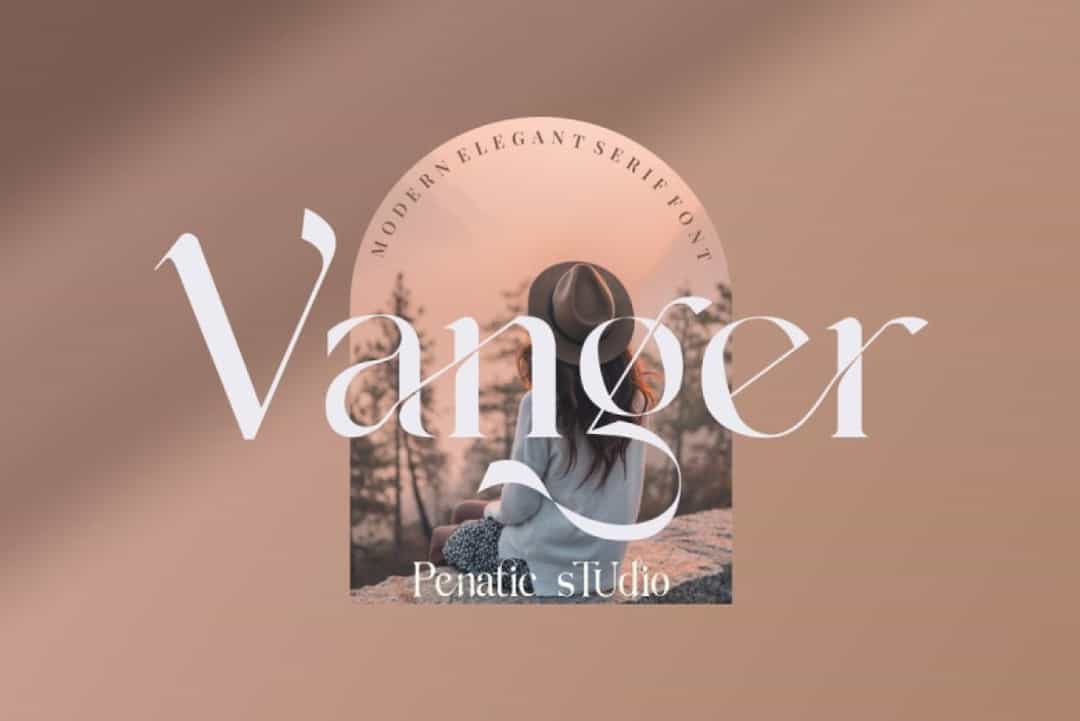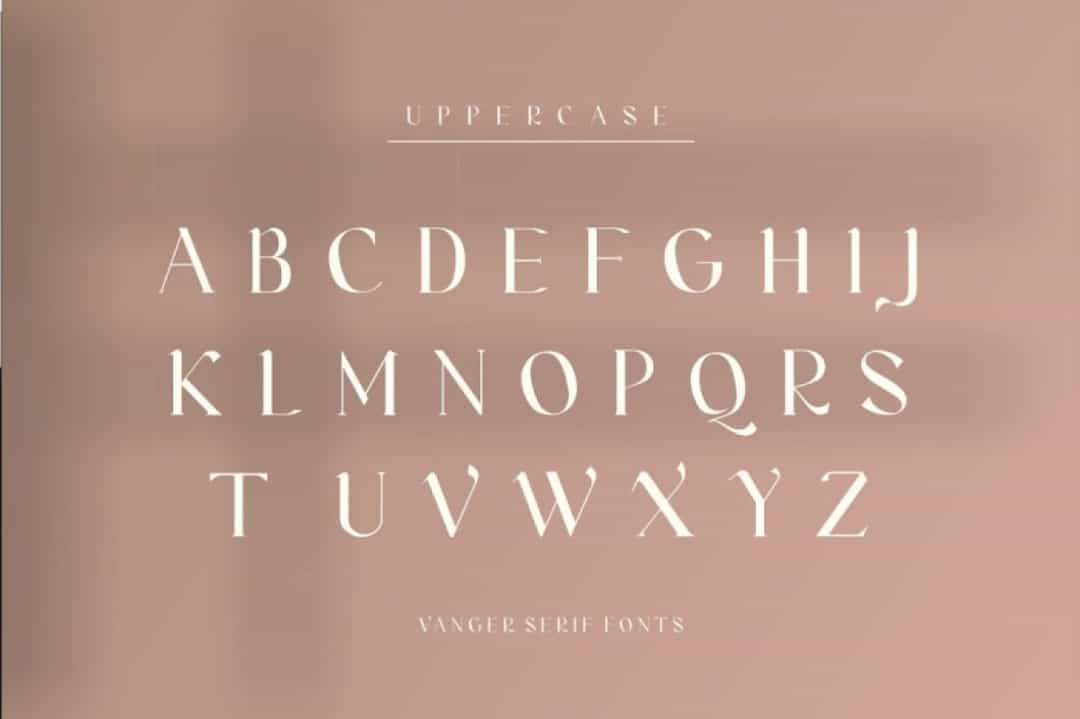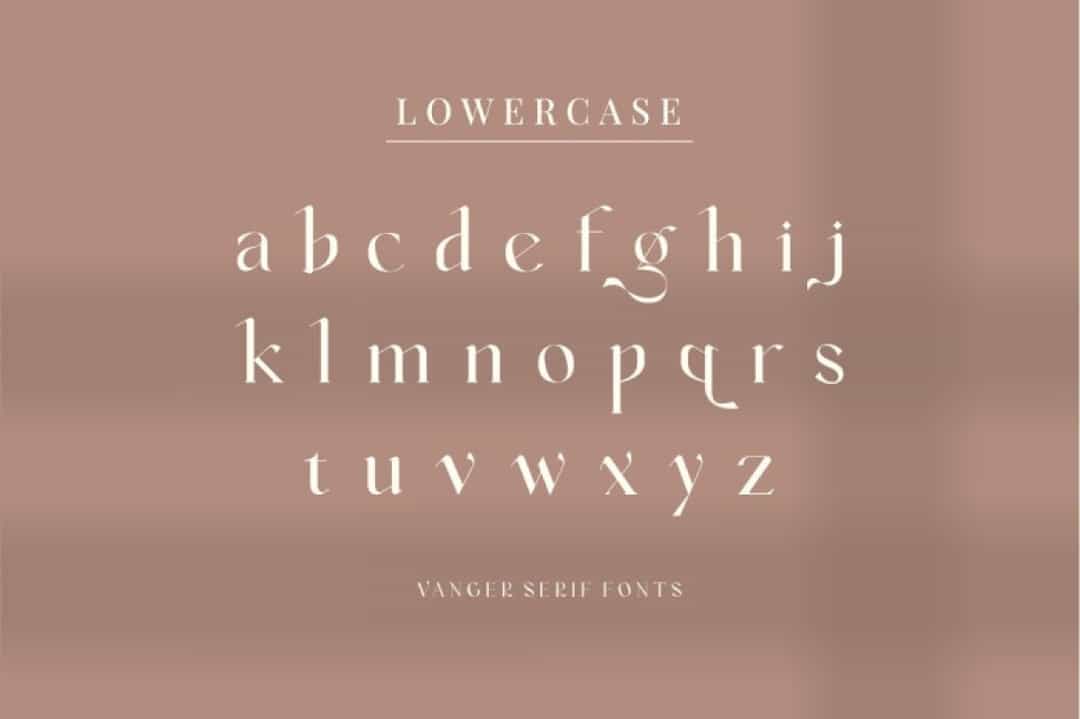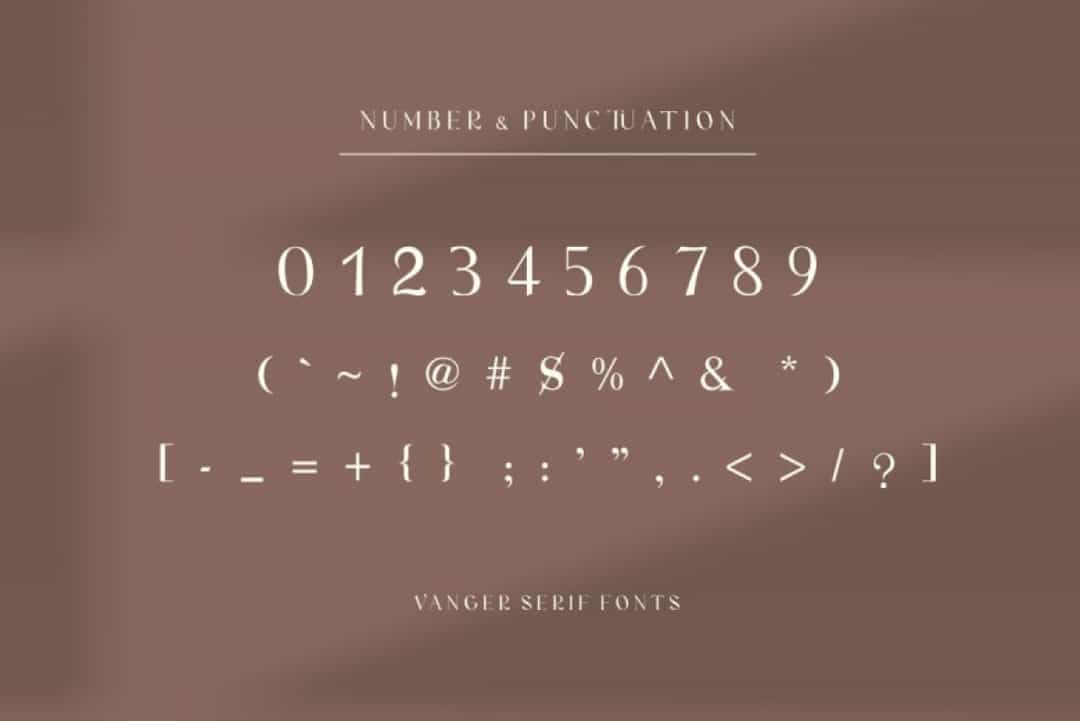
Discover Vanger Font, part of the Serif collection—a versatile and unique font perfect for adding a personal touch to your projects. Download it for free and enjoy crafting designs with style, from invitations to social media posts. This font is available exclusively for personal use, giving you the freedom to create without limits. Unlock your creativity with Vanger Font today!
Vanger Serif Font Type is proud to introduce our brand new font family that comes equipped with multiple distinctive ligature characters options and support for multilingual languages. Vanger will dazzle users with its classic yet modern style while providing access to multiple alternatives available through The Opentype Tool.